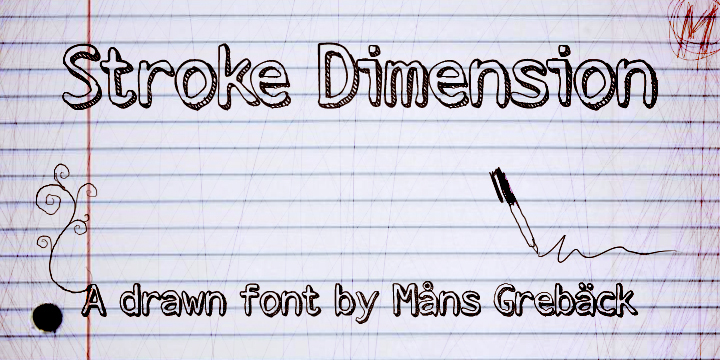
Stroke Dimension by Måns Grebäck is a free cartoon display font with loose, rounded outlines and a hand-drawn three-dimensional finish. Hatched shadows give the letters their lively depth.
It can turn a poster title into a sketched sign, making it especially apt for comedy events, children's entertainment, and casual food packaging. For merchandise and game graphics, the striped inner shading lets the lettering function as part of the illustration rather than neutral type.